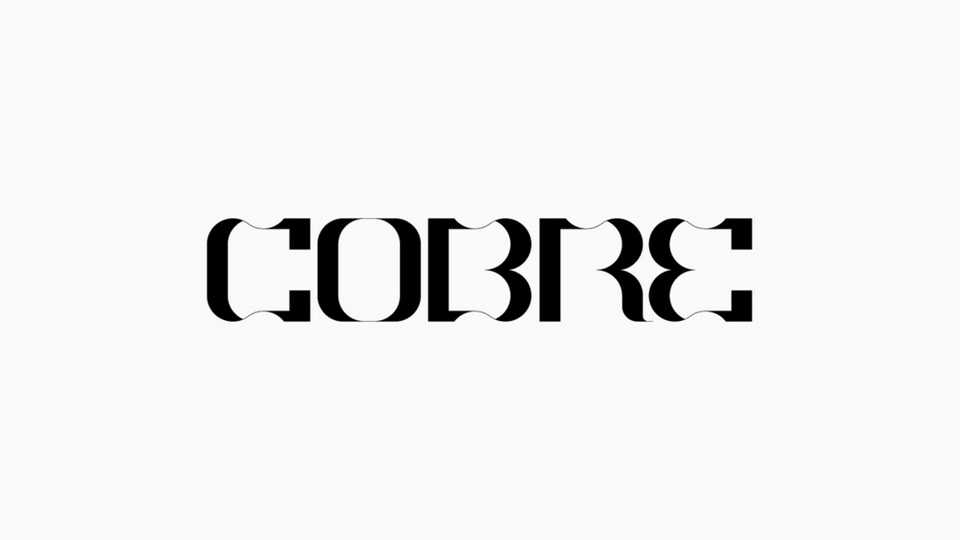
Download Cobre font, a unique display typeface what seeks to reflect that same characteristic by using thin lines and sleek curves as a transition to thick lines creating a subtle tension.
Designer: AVODEVIL